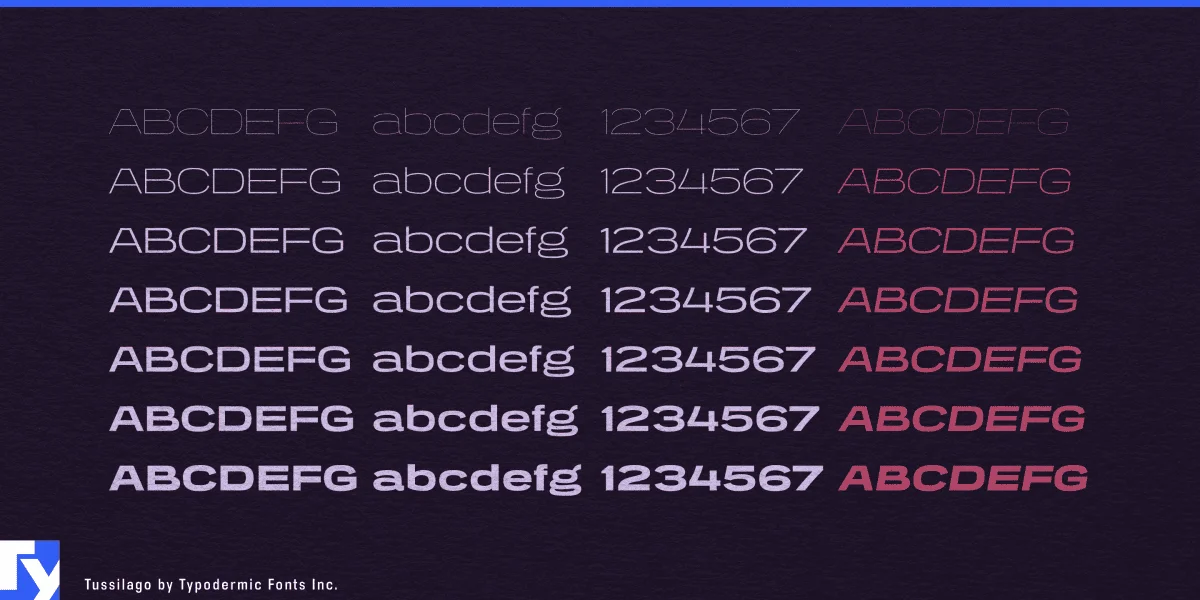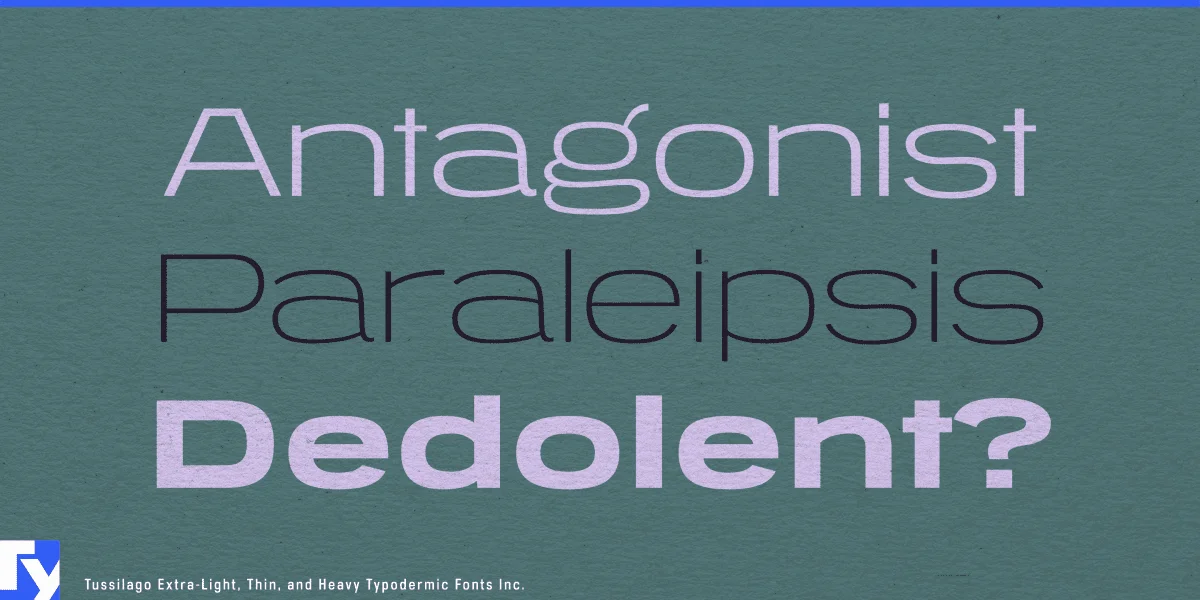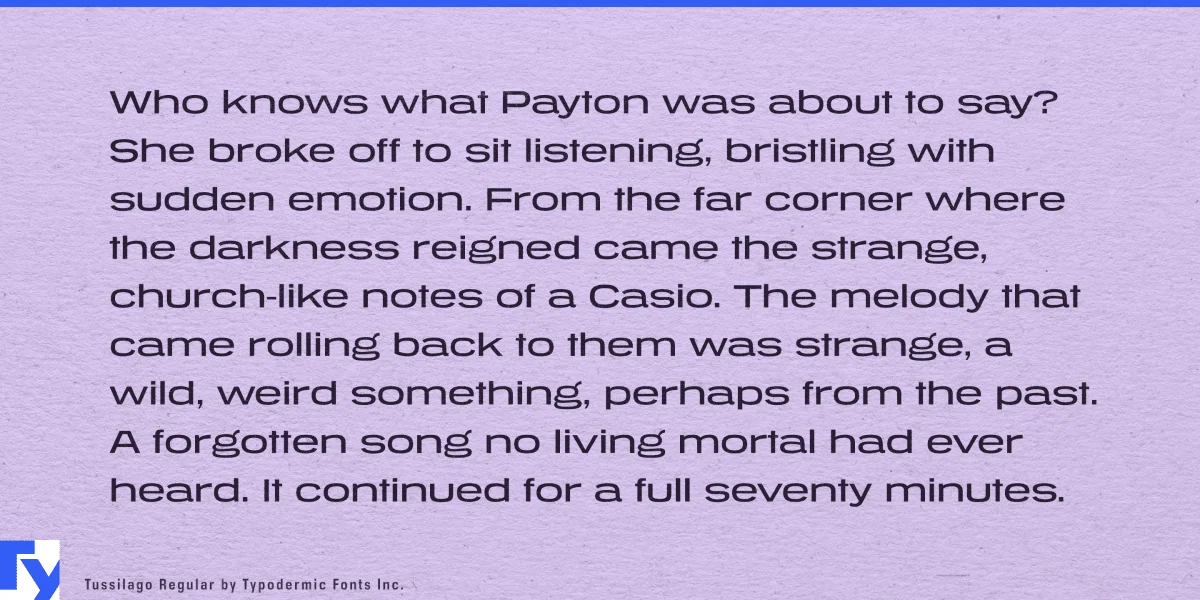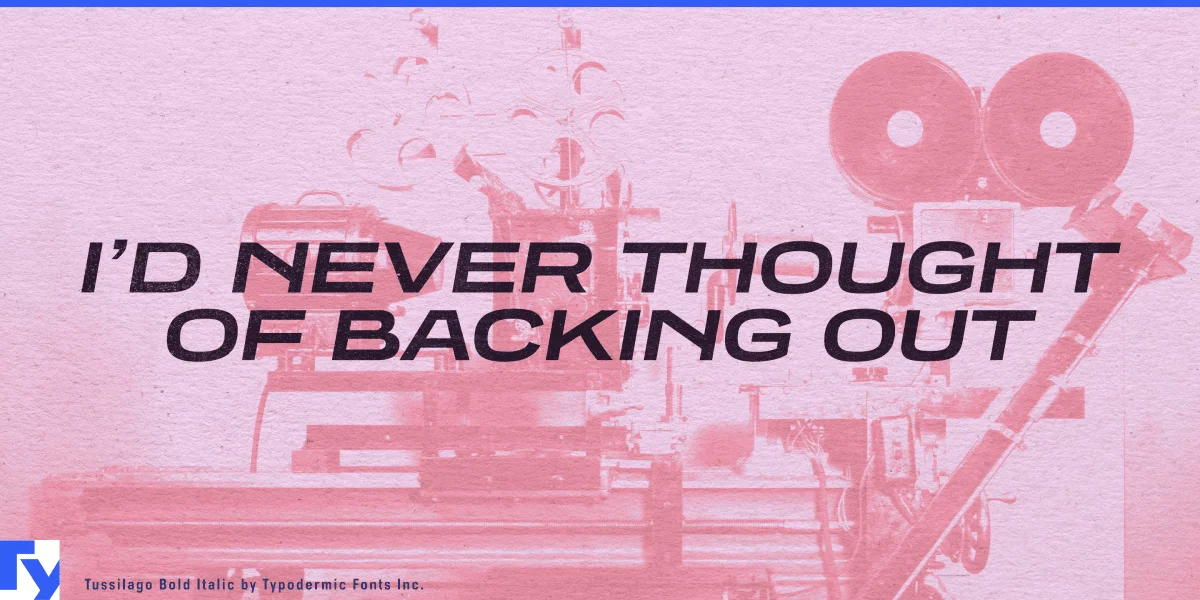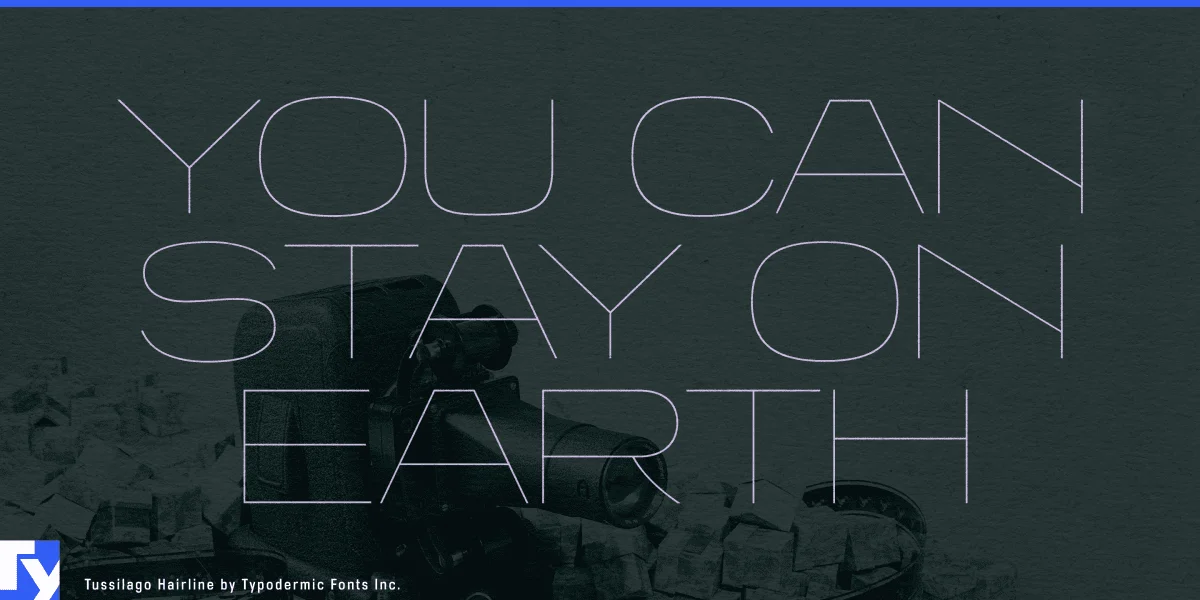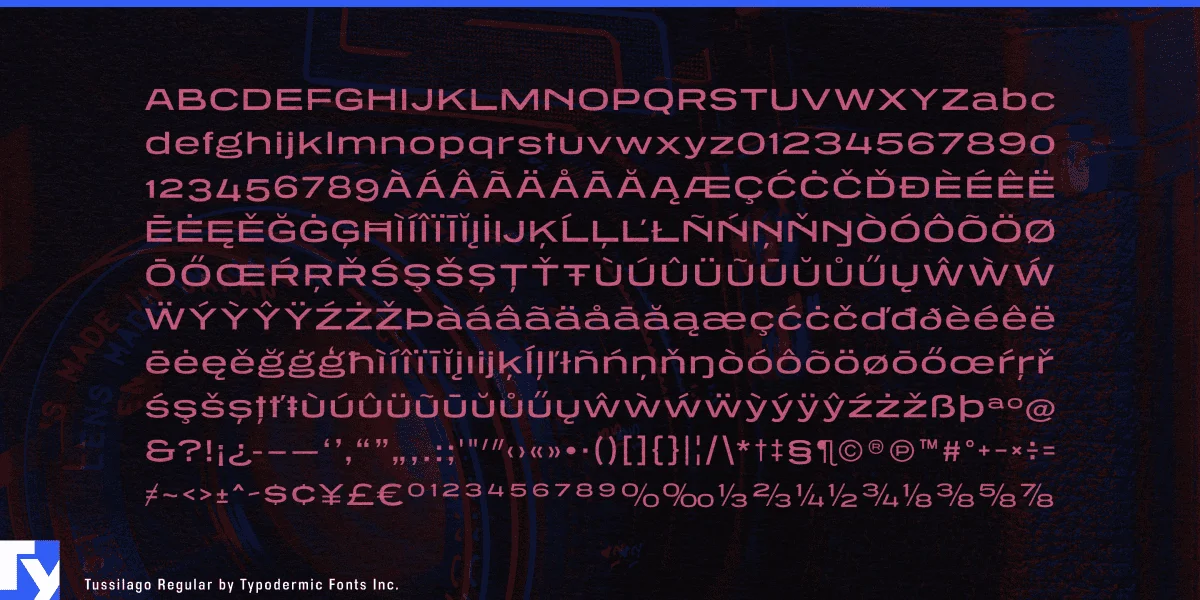
Tussilago is a wide sans-serif typeface with one foot in the mid-twentieth century and the other planted firmly in the present. Its extended letterforms recall the confident proportions of vintage display faces, but subtle detailing and modern spacing make it ready for contemporary work. Old-style and lining numerals are built in, so you can fine-tune the mood of everything from editorial layouts to brand identities. Tussilago’s openness and clarity make it just as comfortable in bold headlines as it is in compact body text.